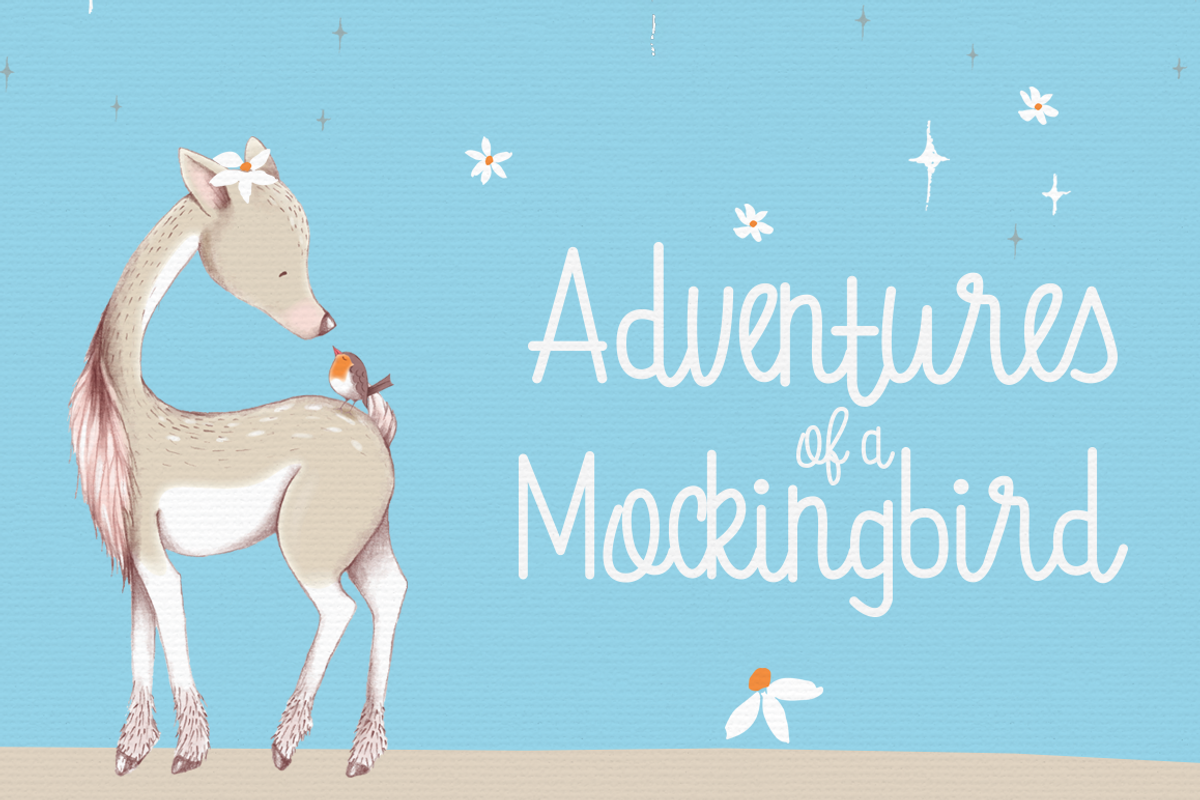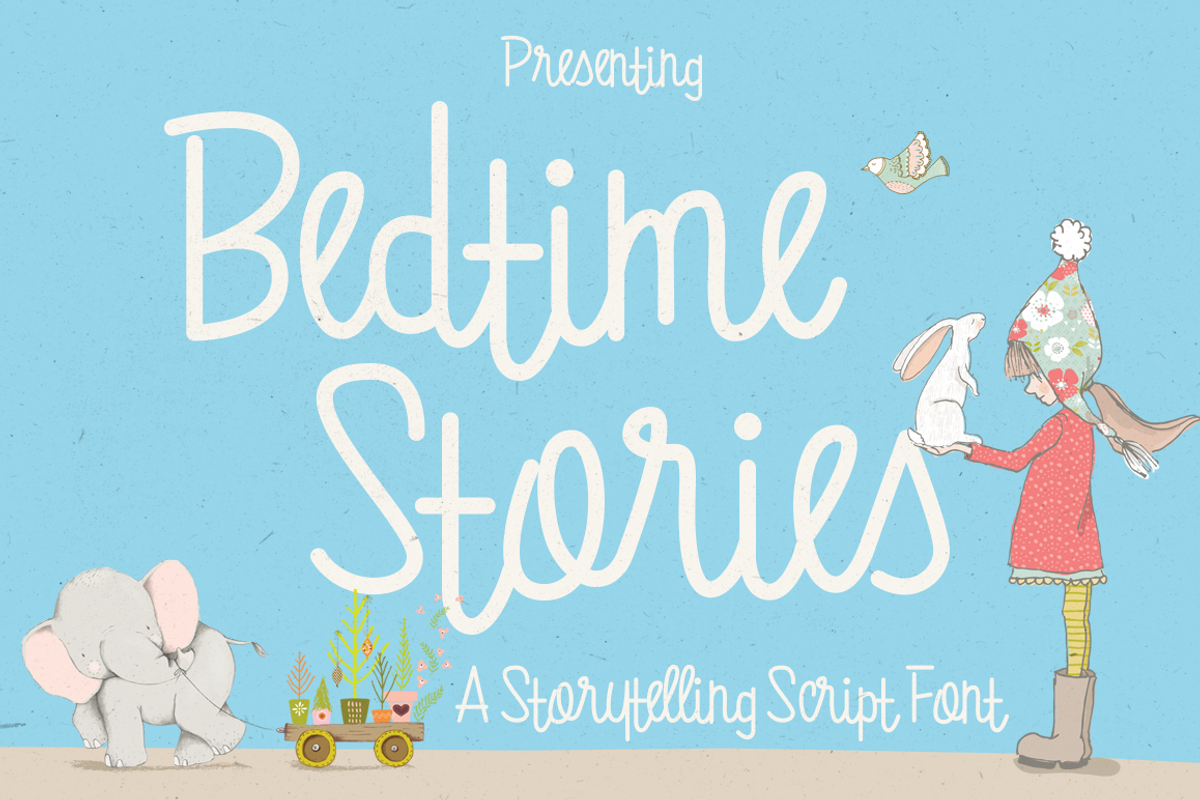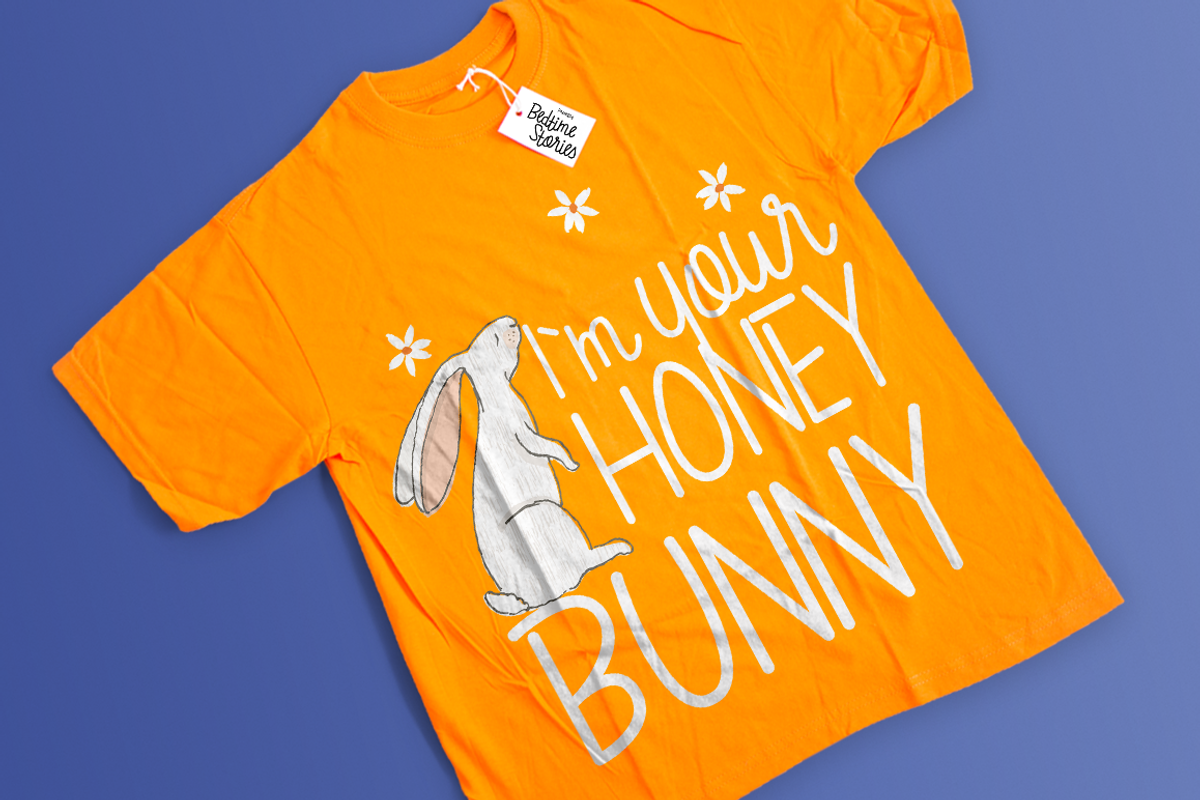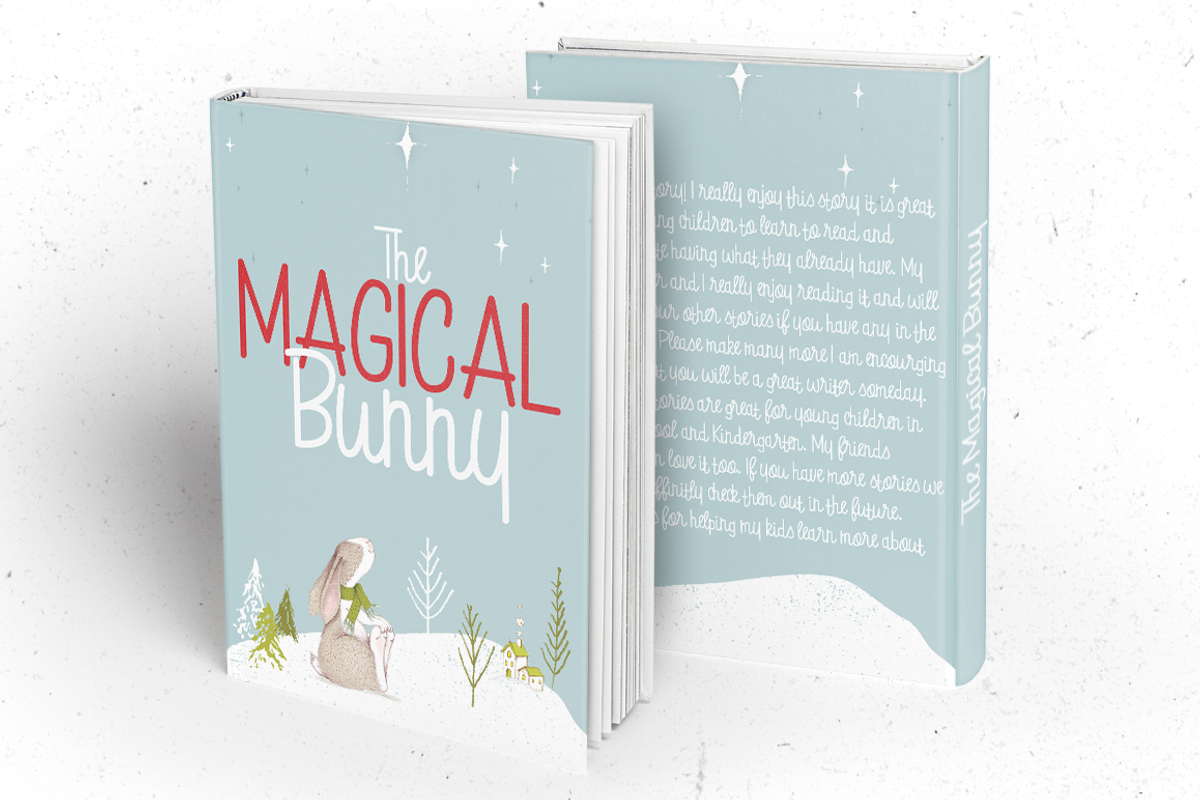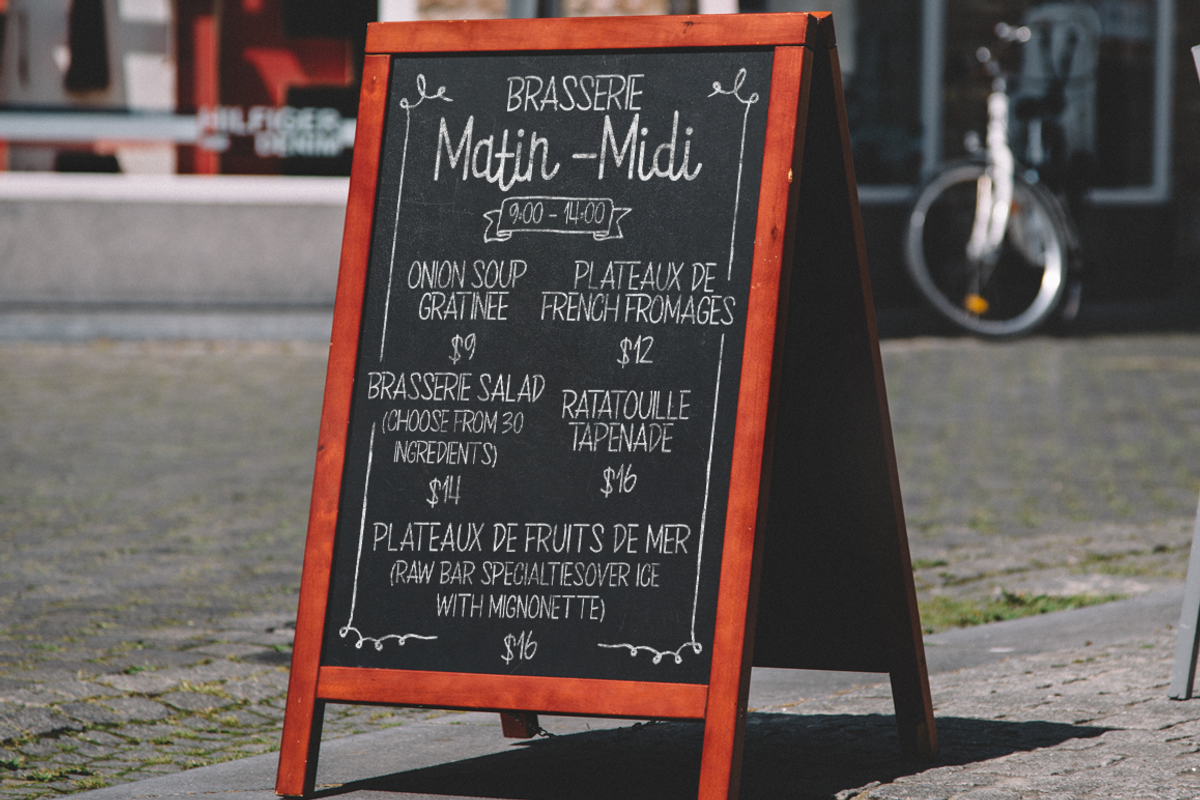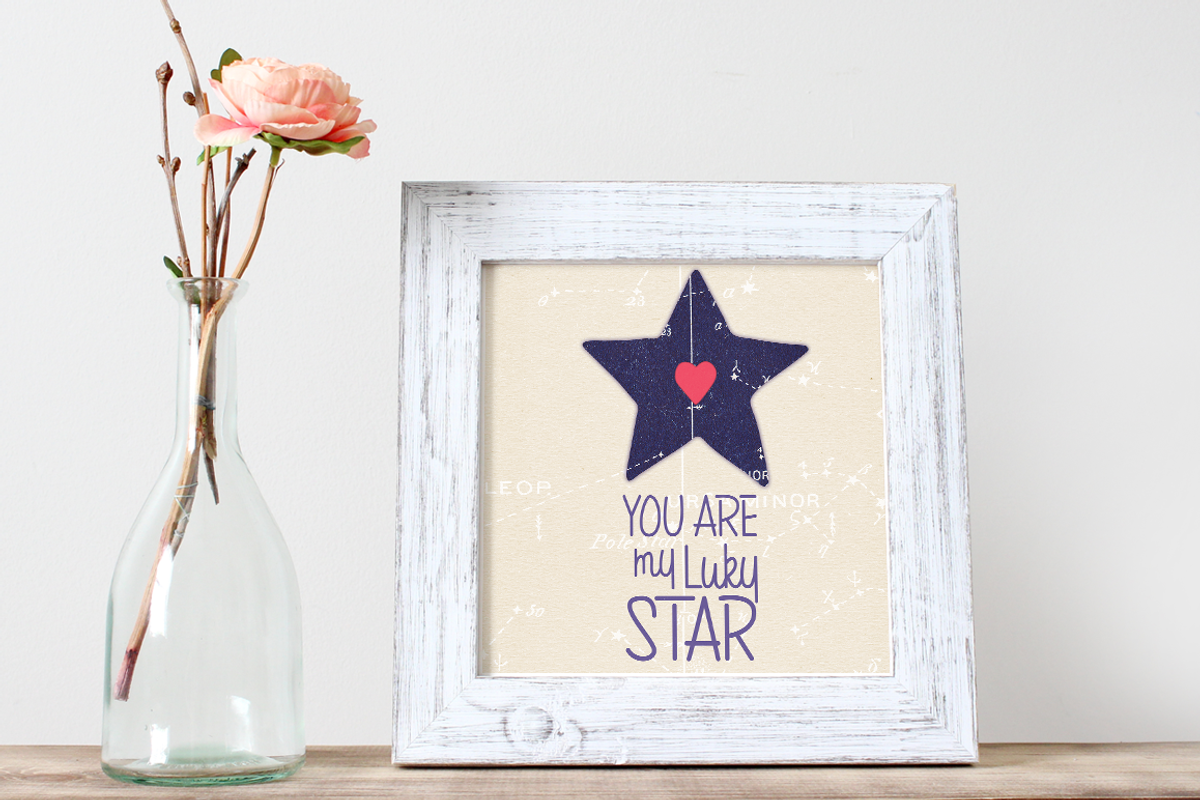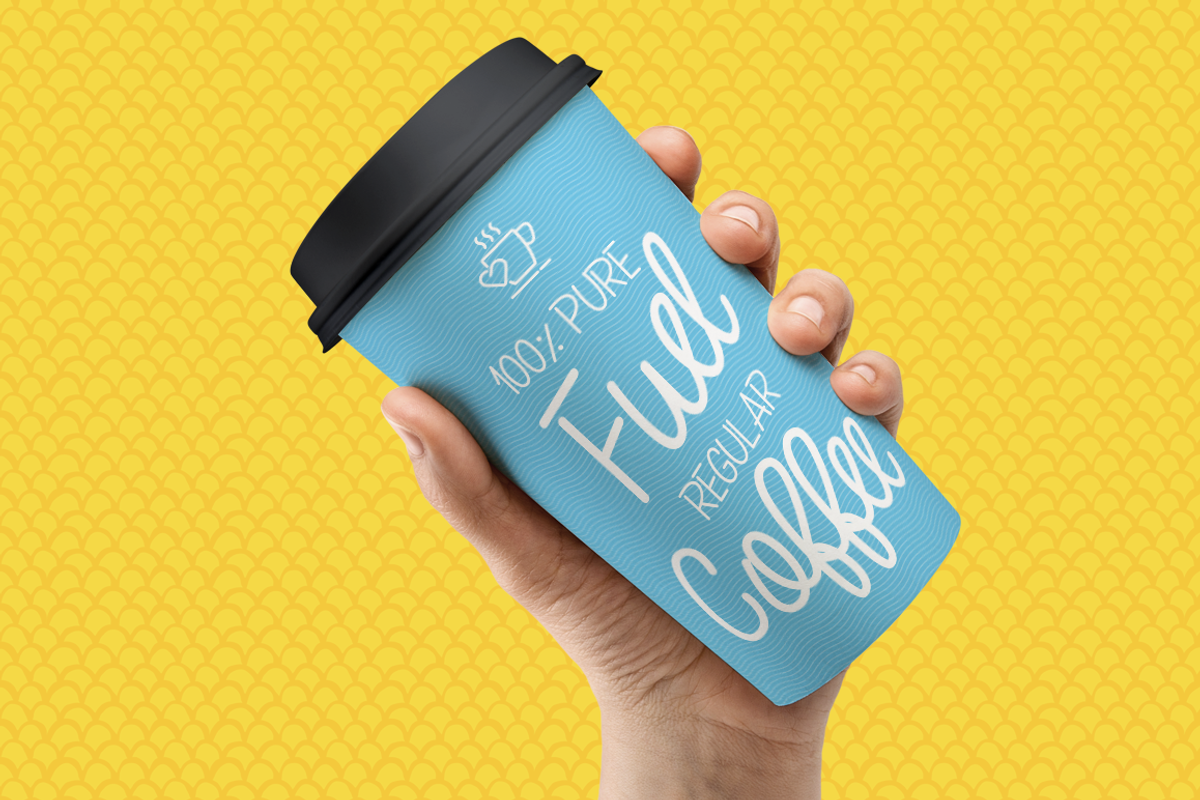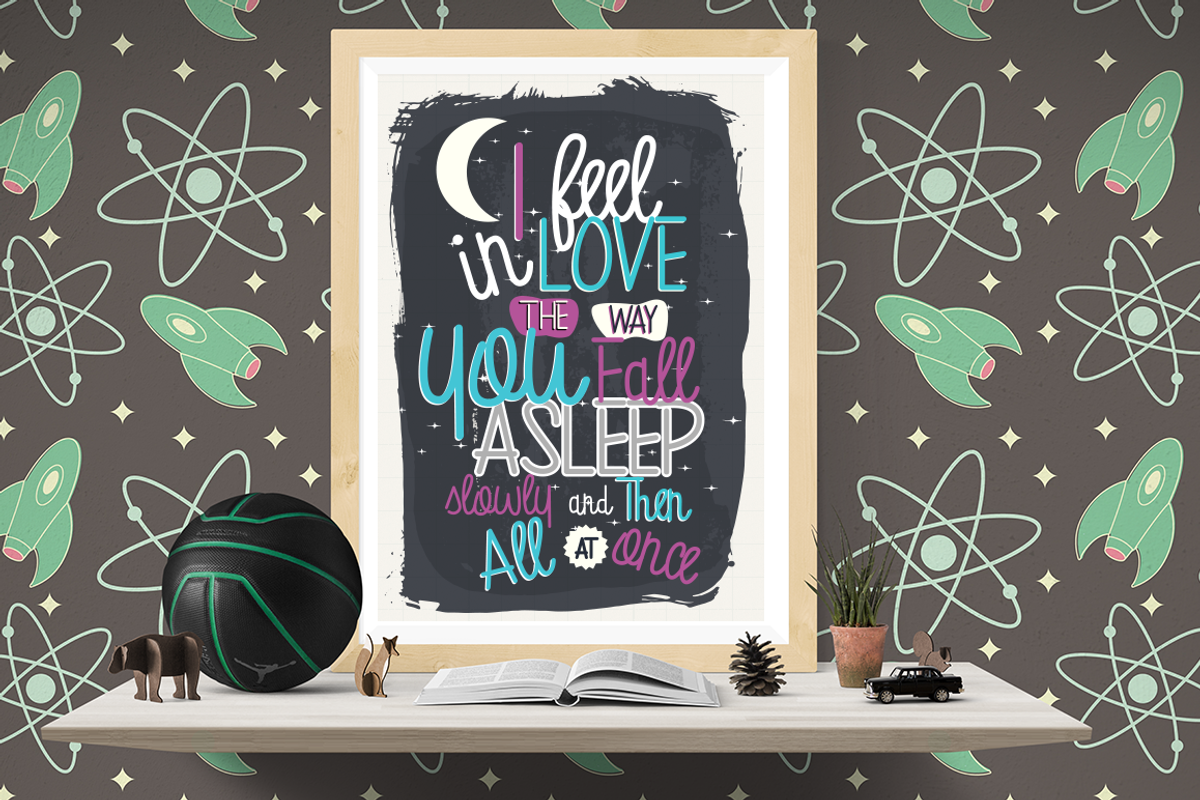
Bedtime Stories Font
I'm Happy to present you: Bedtime Stories.
A storytelling font, with playful yet casual typeface, perfect for: book covers, poster design, magazines, logos, name tags, handwritten quotes, product packaging, social media; greeting cards, badges, labels, blog headlines advertising, fashion campaigns, newsletters, album covers, and more..